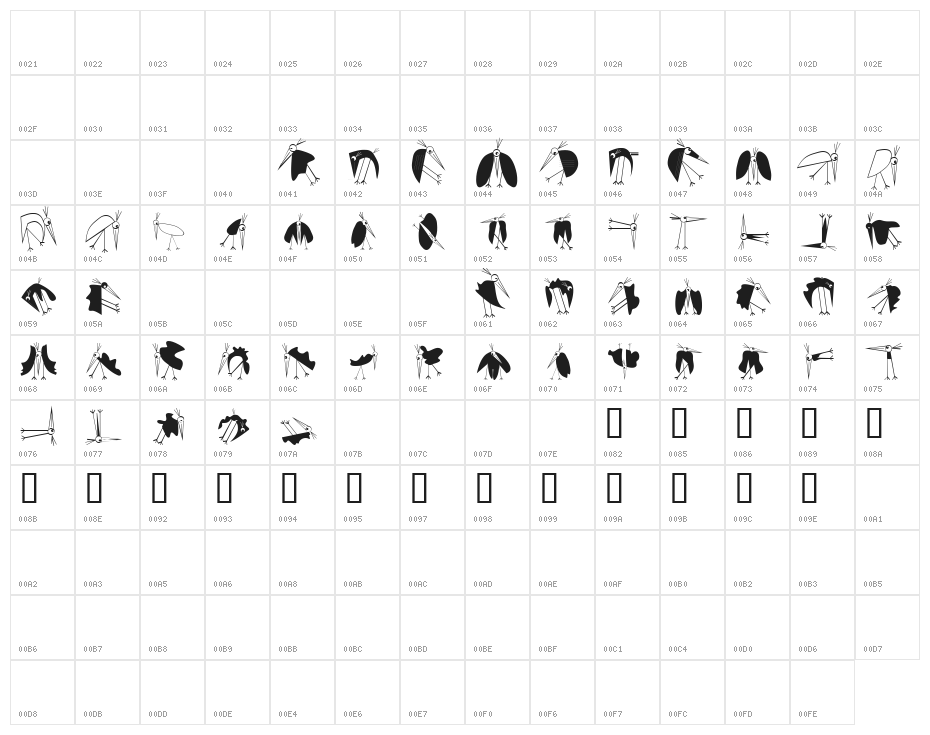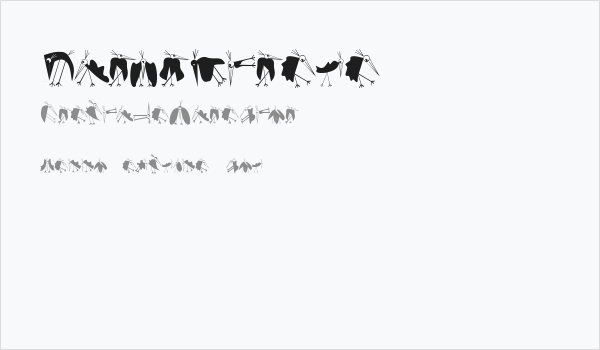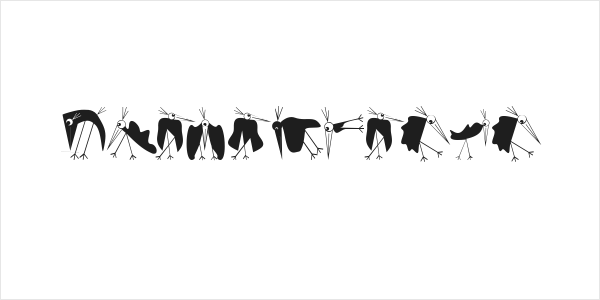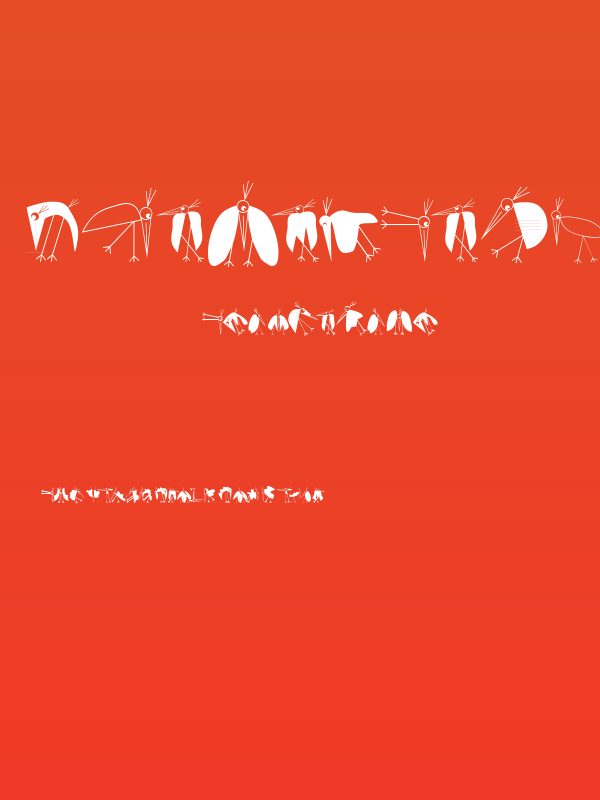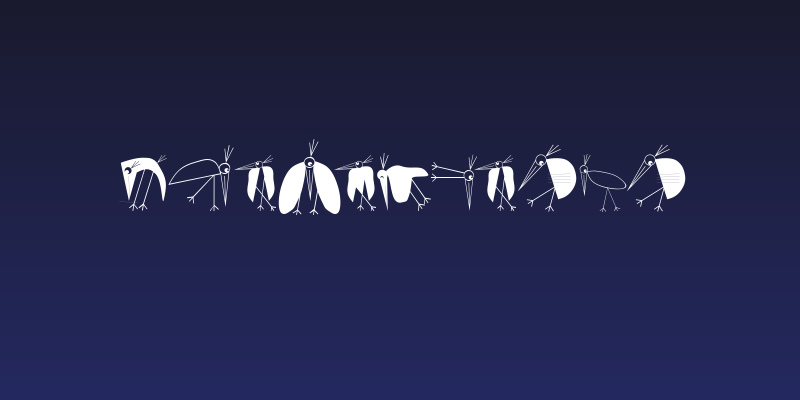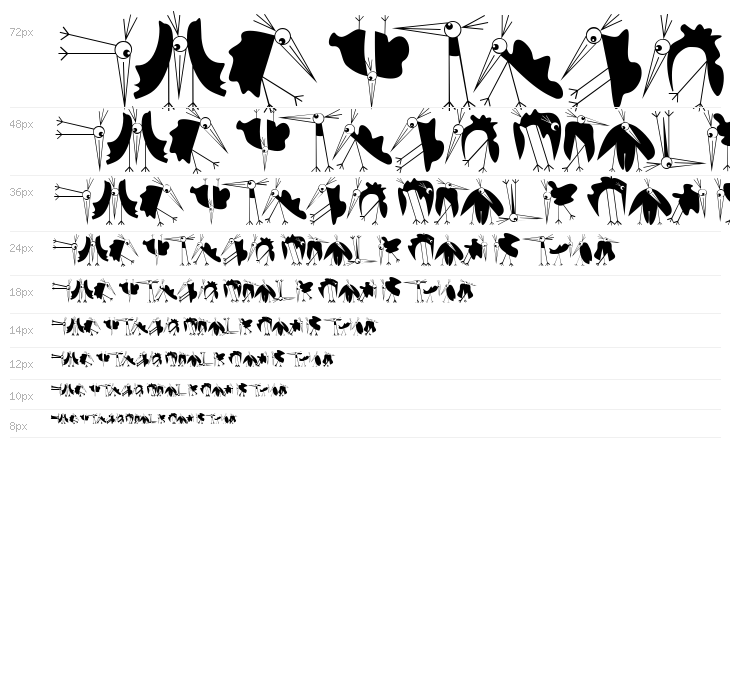
BirdsXtreme Font
BirdsXtreme Description
This whimsical and playful font features characters designed as stylized birds, each letter and number creatively formed by the shapes and postures of these avian figures. The design is highly decorative, with each character exhibiting unique bird-like features such as beaks, wings, and feet, adding a sense of movement and personality. The font is primarily black and white, with bold, solid shapes that create a striking visual impact. The characters are consistent in their imaginative theme, making it a cohesive set despite the variety in individual designs. This font is perfect for projects that require a fun and artistic touch, capturing attention with its distinctive and lively appearance.
| Proposed Projects | Ideal for children's books, playful branding, creative posters, and any project seeking a whimsical and artistic flair. |